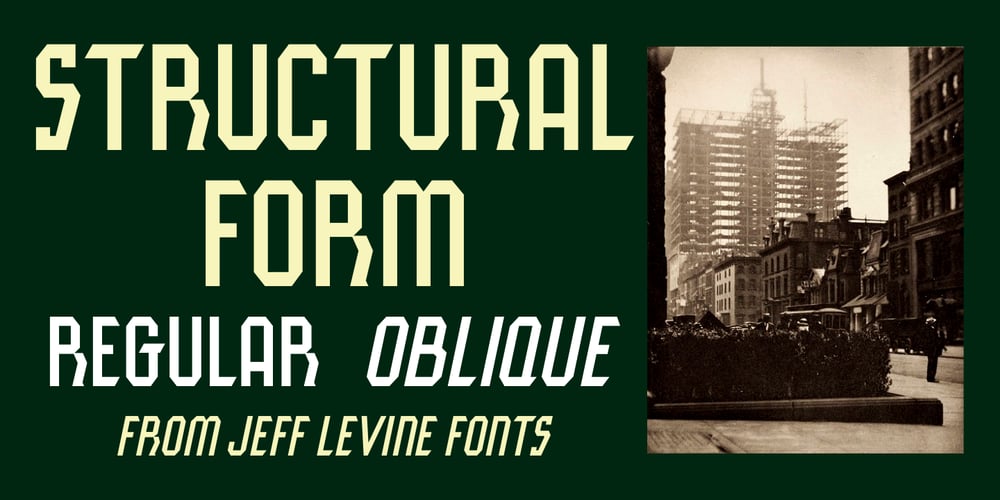
Structural Form JNL Font Family was designed by Jeff Levine and published by Jeff Levine. Structural Form JNL contains 2 styles and family package options. An ad appearing in the June 5, 1935 edition of Motion Picture Daily for the film “Bluebeard’s Eight Wives” was hand lettered in a condensed, chamfered sans with some Art Deco influences.This is now available as Structural Form JNL, in both regular and oblique versions.